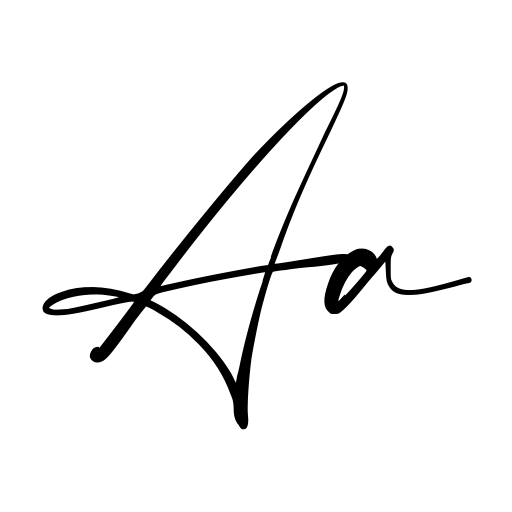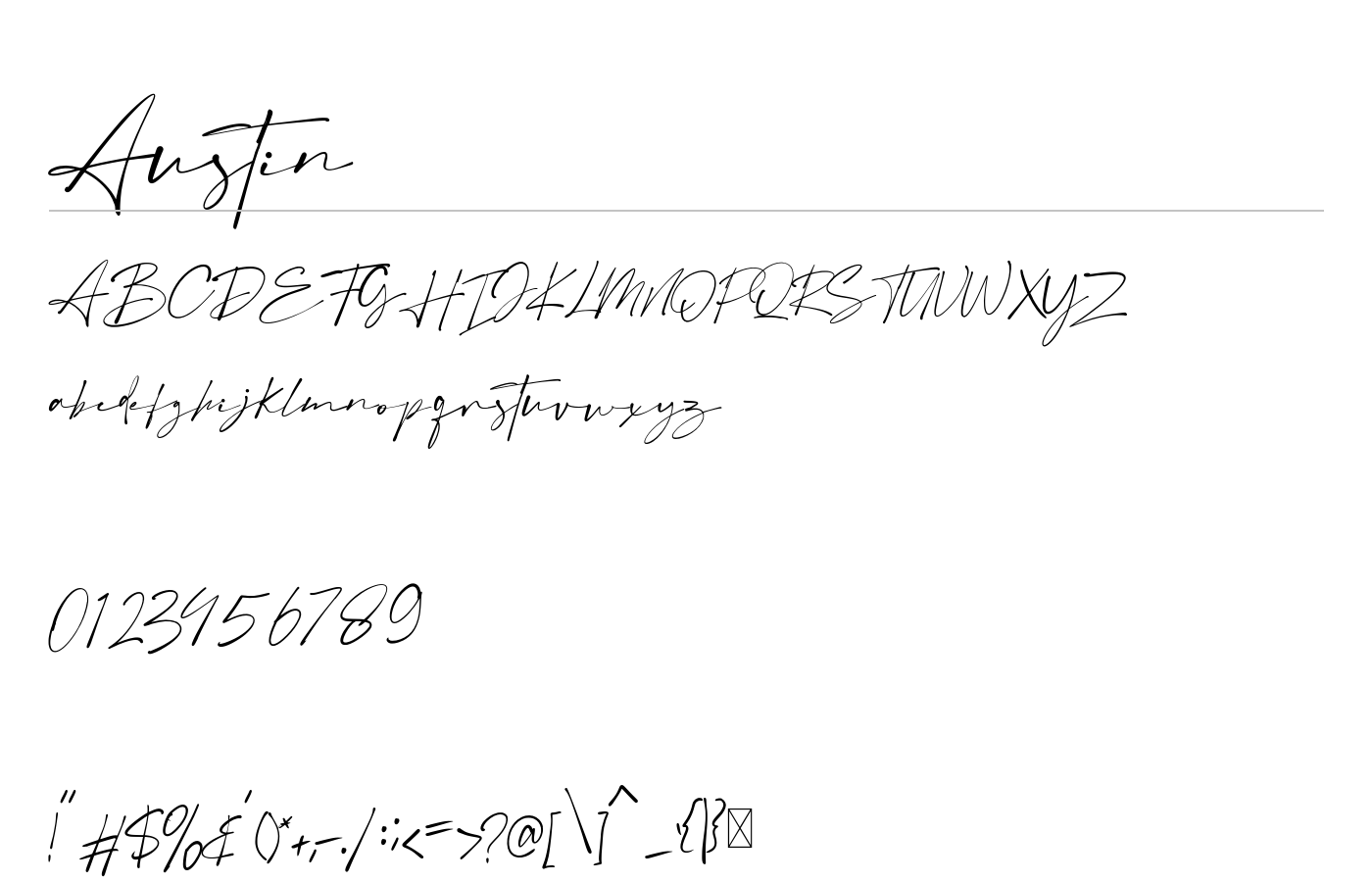
Austin Font is an elegant, modern script typeface with a delicate, handwritten feel characterized by thin, flowing strokes and a natural, casual style. Its tall, narrow letterforms and fluid connections make it perfect for stylish branding, invitations, and editorial designs that seek a personal yet refined touch. This font works well in projects where a graceful and sophisticated vibe is desired, especially for fashion, beauty, and lifestyle applications.
Austin Font
About Austin Font